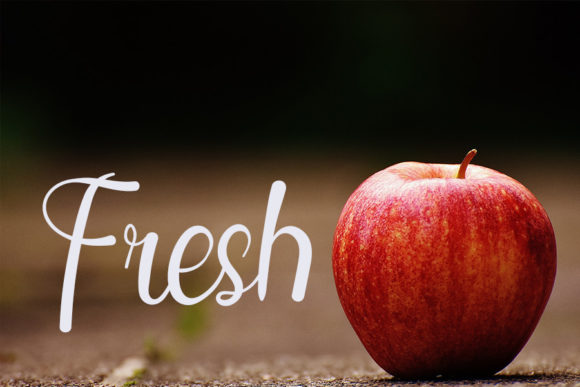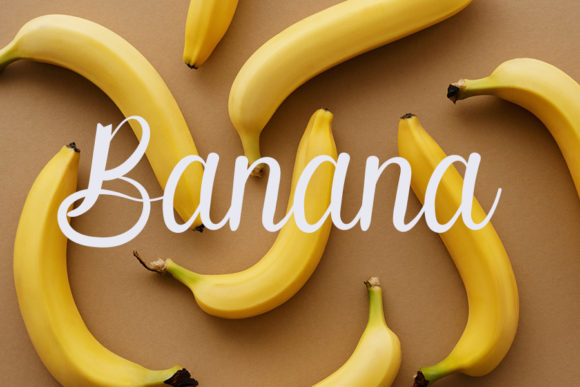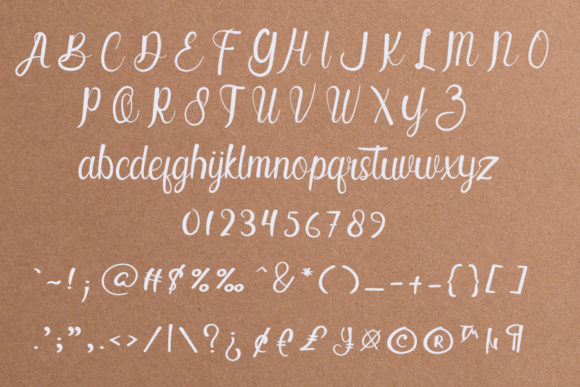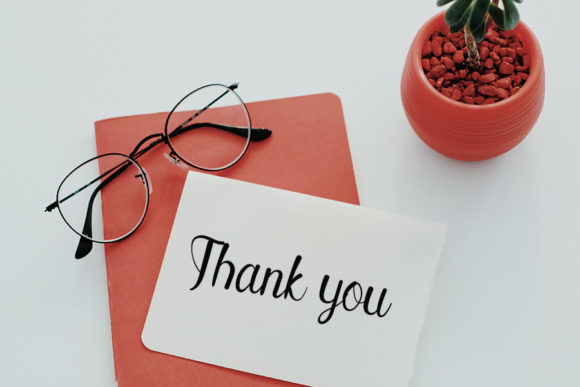
Introduction to Milk Orange Font
Milk Orange is a beautiful and versatile handwritten font with a unique feel and a stunning impact.
It will add a lovely spark to any design or creative project you have coming up .
Key Features of Milk Orange Font